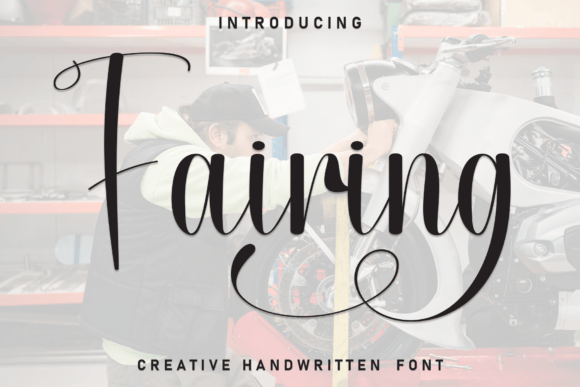
Meet Fairing Font, a whimsically sweet and playful display font that’s bursting with creative potential. Designed to add a touch of magic to your projects, Fairing Font is perfect for crafting one-of-a-kind wedding invitations, artistically-tailored cards, and any other design that needs a little extra oomph. As a designer, you’ll love the flexibility and versatility that Fairing Font offers, allowing you to bring your wildest creative ideas to life.
Fairing Font Key Features
- Unique Characteristics: Features a unique blend of modern and vintage elements, making it ideal for creating a distinctive visual identity.
Designer Review: Fairing Font
Overall, I found Fairing Font to be a decent addition to any typographic collection, but with some notable caveats. ✨ One of the standout features is its unique blend of modern and vintage flair, which sets it apart from more generic sans-serif fonts.
Some of the other things I liked about Fairing Font include:
- ✨ A wide range of weights and styles, making it suitable for a variety of design applications.
- ✨ Excellent legibility, even at smaller font sizes.
- ✨ Good support for a wide range of languages.
However, I did encounter some limitations that prevented Fairing Font from being a top choice for me. ⚠️ These include:
- ⚠️ Limited OpenType features, which can make it harder to create more complex typographic effects.
Overall, I would recommend Fairing Font for designers who are looking for a unique, high-quality font that can add some visual interest to their designs. However, it may not be the best choice for designers who require a high degree of customization or advanced typographic features.
Introduction to Fairing Font
Fairing font is a type of font style that is commonly used in various graphic design applications to create a smooth, rounded, and stylized text effect. It’s ideal for adding a touch of elegance and sophistication to your designs.
Tips for Getting the Most Out of Fairing Font
To get the most out of fairing font, experiment with different font sizes, colors, and styles to create a unique and stylized effect. You can also use the “Layer” feature in Adobe Photoshop and Illustrator to create a multi-layered text effect.
Fairing font is commonly used in various design applications, including:
- Wedding invitations and wedding stationery
- Website headers and footers